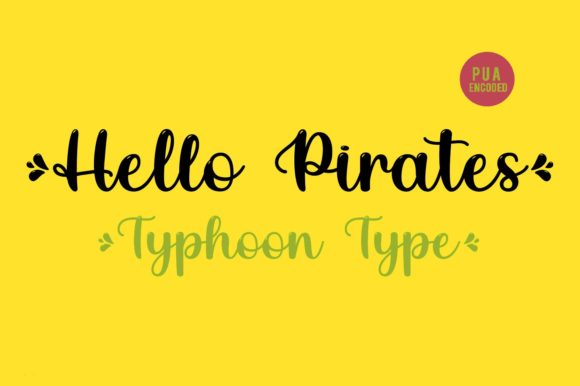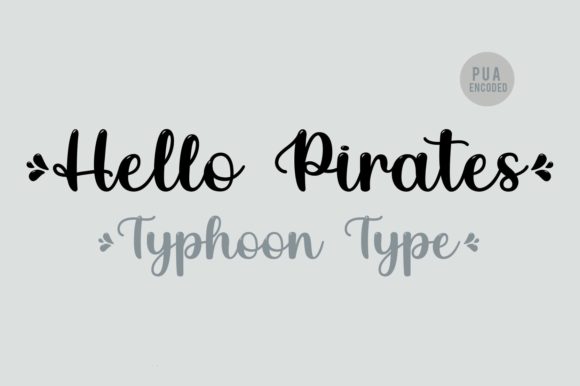
Introduction to Hello Pirates Font
Hello Pirates is a lovely and timeless handwritten font.
Key Features of Hello Pirates Font
Why Choose Hello Pirates Font?
Hello Pirates Font offers exceptional quality and versatility, making it a valuable addition to your design toolkit. Whether you’re creating for personal projects or commercial use, Hello Pirates Font delivers professional results.